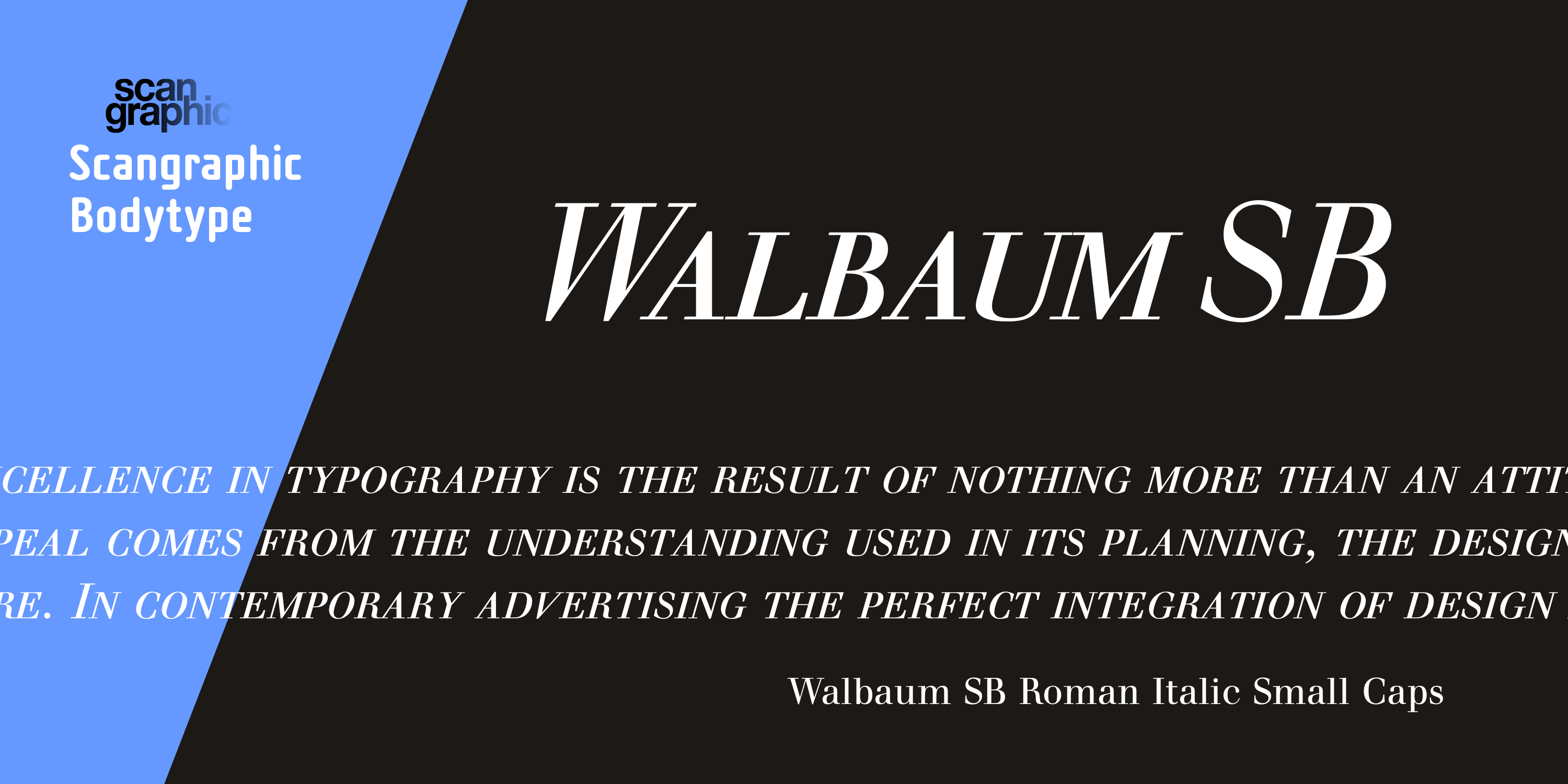
Walbaum SB Font is perfect for classical German literature publications, traditional Germanic academic texts, historical European document reproductions, prestigious university materials, scholarly philosophical treatises, cultural heritage exhibitions, traditional printing house identities, classical music program layouts, Germanic historical societies, and distinguished European cultural institutions. This distinguished typeface excels in applications where Germanic typographic heritage and European scholarly tradition need to be communicated with classical authority and intellectual sophistication that embodies the essence of traditional German printing excellence and the refined cultural legacy found in European academic and literary traditions.
What makes Walbaum SB Font exciting is its remarkable ability to embody the pinnacle of Germanic typographic craftsmanship through its precisely balanced letterforms that represent centuries of German printing tradition and the systematic excellence that characterized the golden age of European typography and scholarly publishing. The font captures the essence of Germanic intellectual tradition with its classically structured construction and academically refined proportions that suggest the meticulous scholarship and cultural sophistication that defines serious European academic discourse and traditional German printing excellence. Its expertly crafted character details and scholarly personality create an atmosphere of intellectual distinction that resonates with academic institutions, cultural historians, and European heritage organizations who understand the profound importance of preserving and celebrating the rich typographic heritage of Germanic printing traditions.
The Walbaum SB Font family typically includes Regular, Medium, and Bold weights, each maintaining the signature Germanic characteristics and classical scholarly appeal. Some versions offer traditional German character support, alternative elements inspired by historical Germanic manuscripts, and specialized variants optimized for academic publications and cultural heritage presentations. The family may also include Small Caps for hierarchical academic text and display cuts designed for maximum scholarly impact in educational and cultural applications requiring authentic Germanic typographic credibility and European academic authority.
Whether you're creating Germanic cultural brands, European academic materials, or classical scholarly communications, Walbaum SB Font Free Download delivers the perfect Germanic authority your heritage-focused projects deserve. Its classical character and Germanic styling make it an invaluable choice for universities, cultural institutions, and academic publishers working in Germanic studies, European cultural preservation, and classical scholarship sectors where authentic Germanic typographic heritage and scholarly European credibility are essential for establishing intellectual authority and honoring the distinguished traditions of German printing excellence and European academic scholarship.